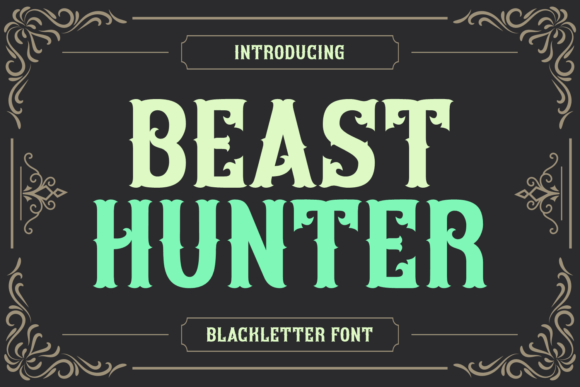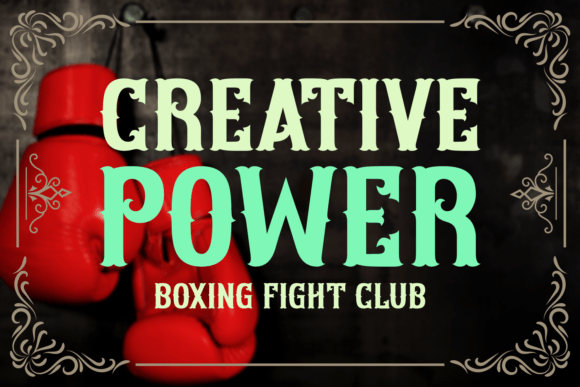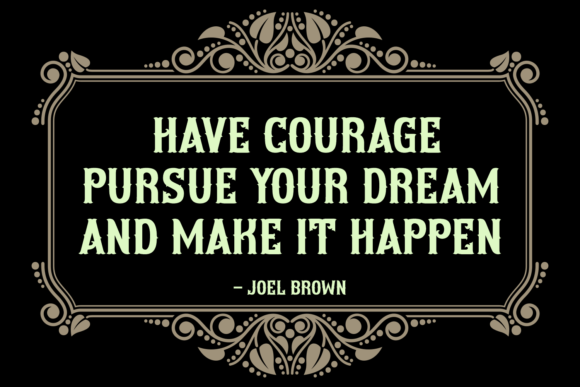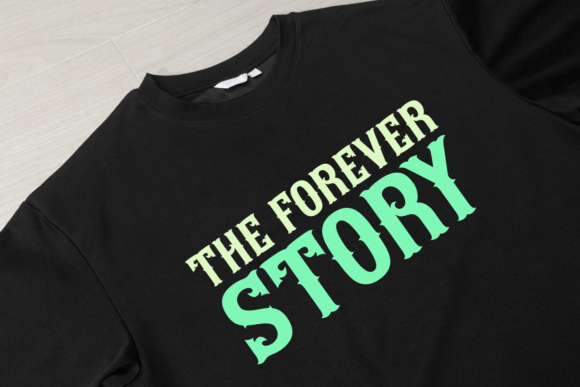
Beast Hunter Font
About the Beast Hunter Font
Presenting Beast Hunter Font, a unique and stylish typeface that will make your work stand out. Beast Hunter is a vintage blackletter font that exudes boldness, tradition, and a rugged, old-world charm. Its design is rooted in historical blackletter scripts, offering a powerful and dramatic aesthetic perfect for designs that aim to evoke a sense of antiquity, strength, and adventure. With its strong visual presence, Beast Hunter is ideal for impactful designs like posters, logos, book covers, and branding that seek a bold, vintage, or gothic style. Its heavy strokes make it stand out and grab attention, while its vintage flair adds a touch of nostalgia.
Beast Hunter Font Usage Examples
Beast Hunter Font Example